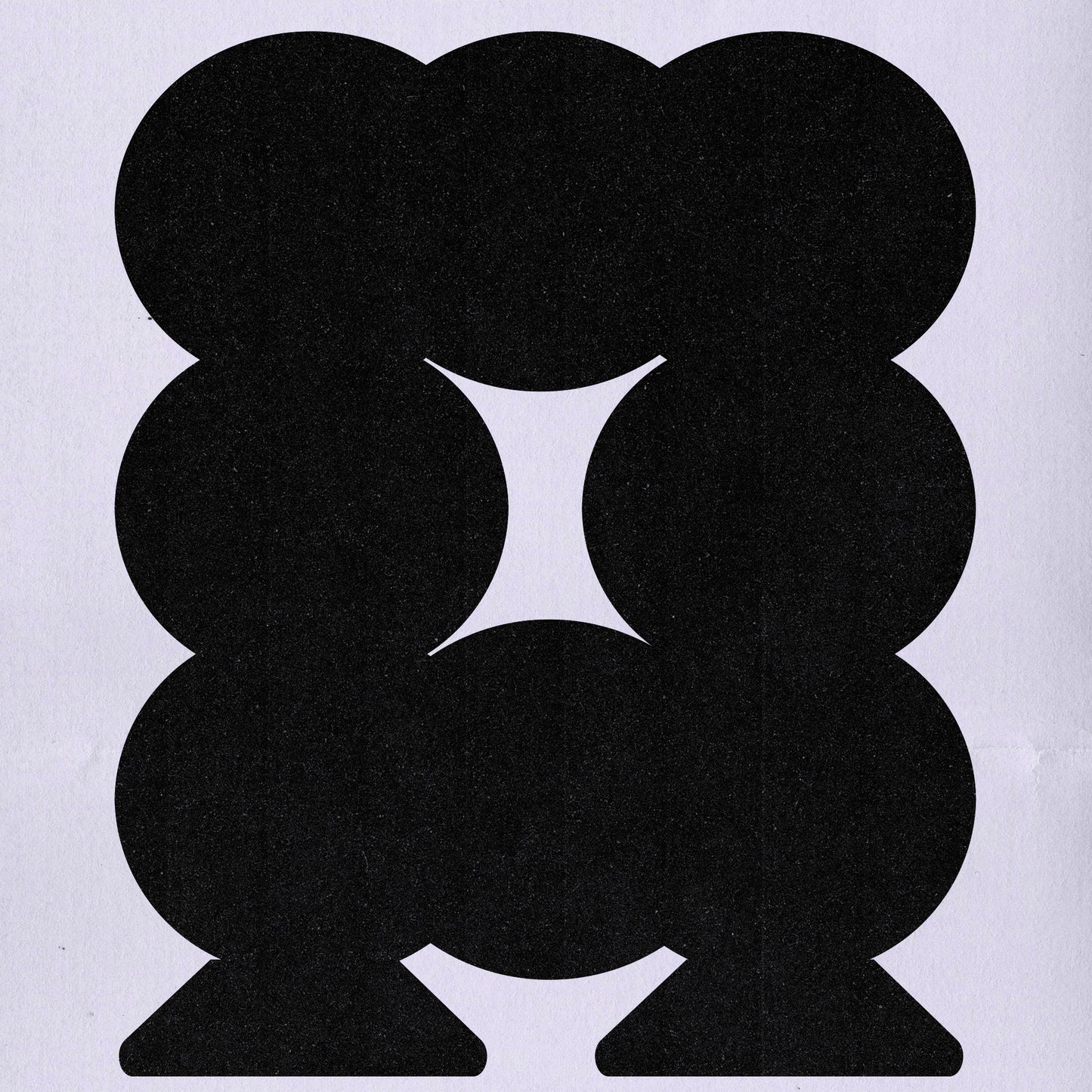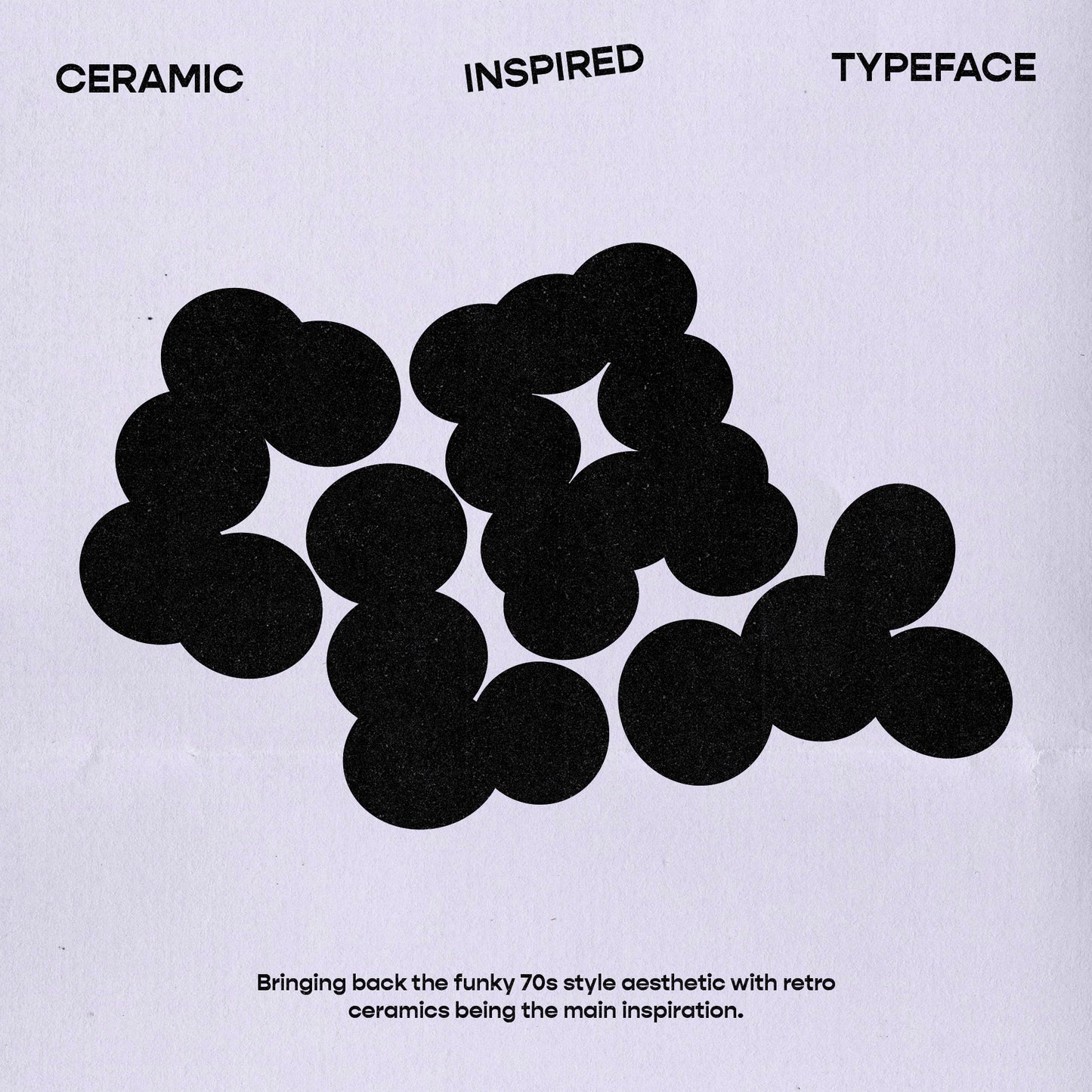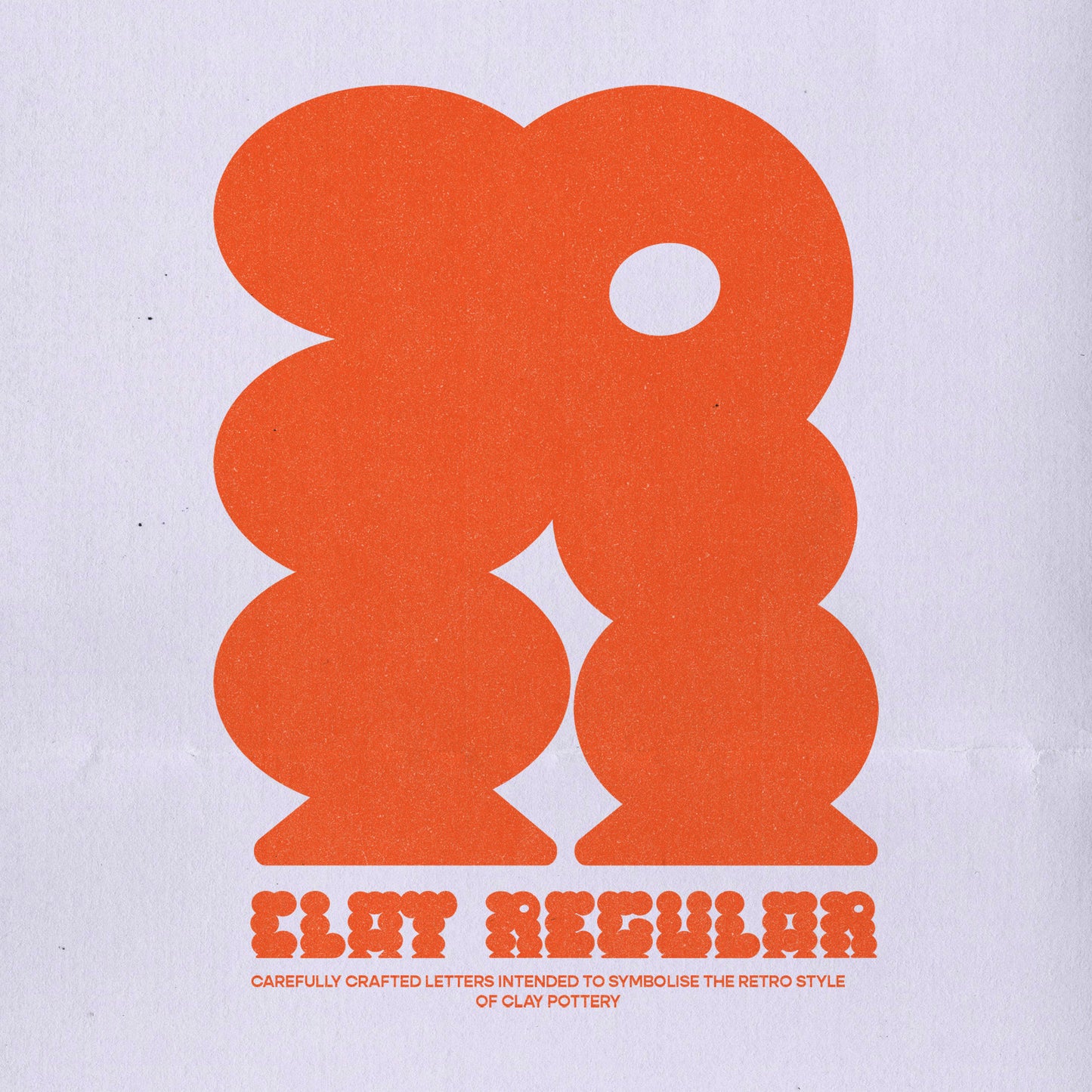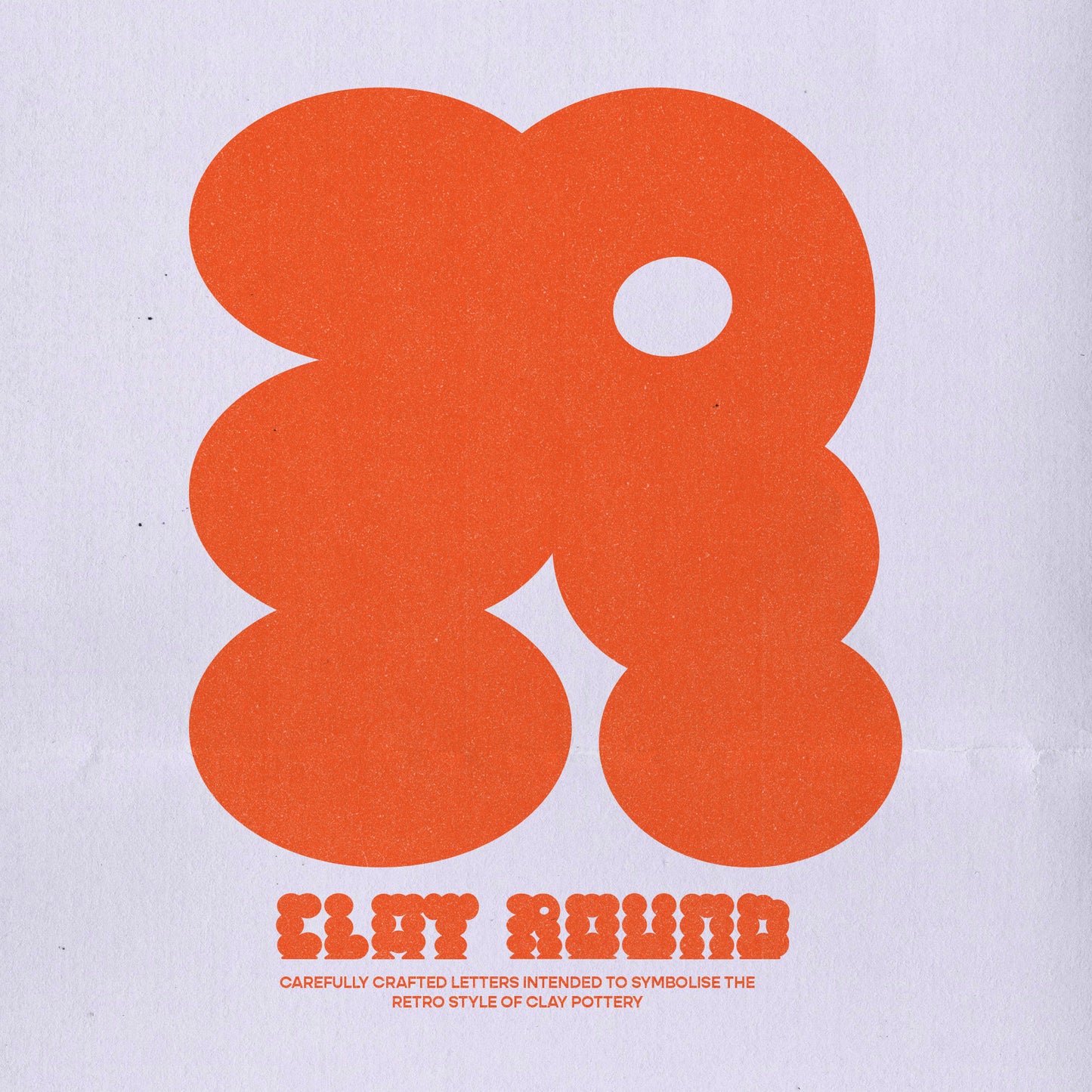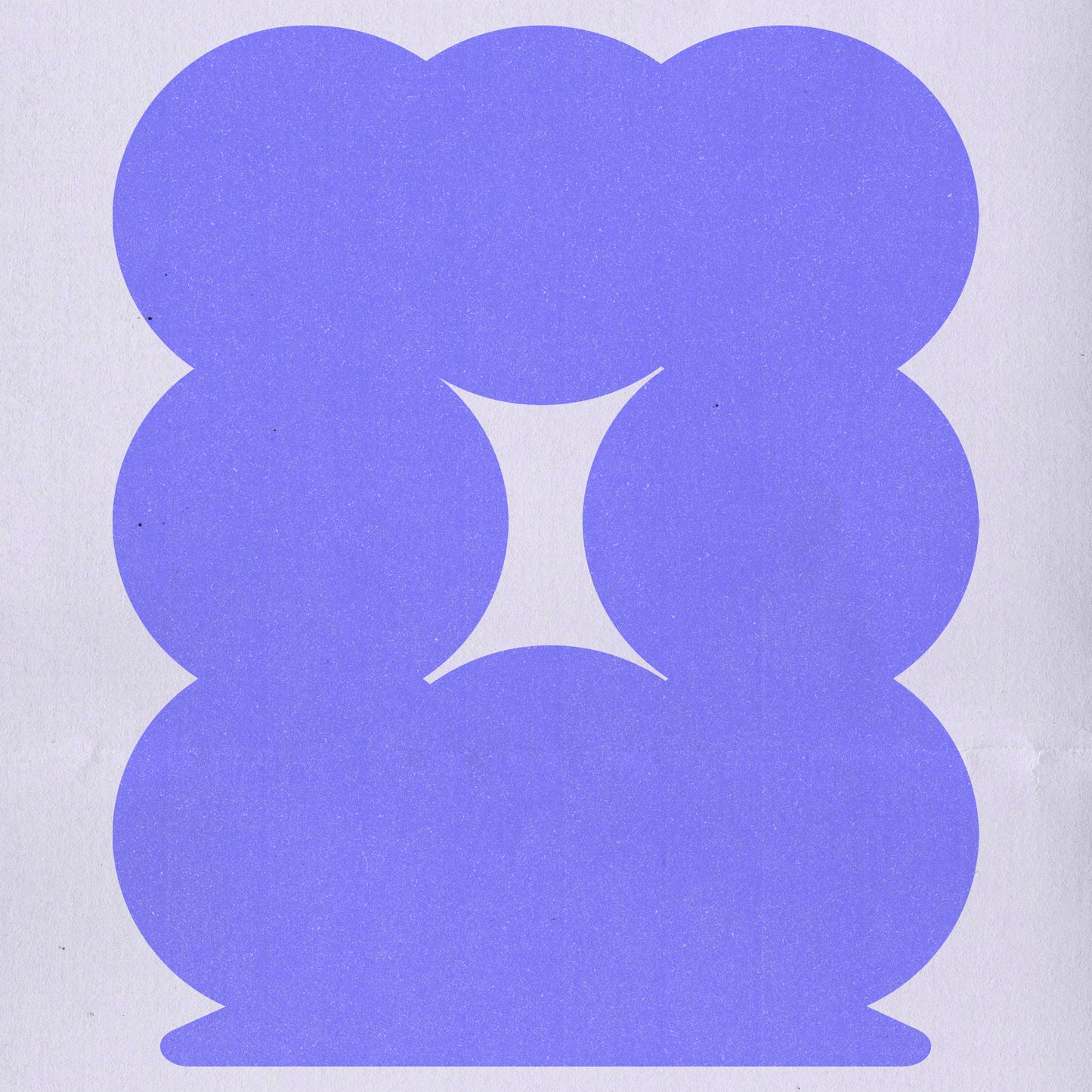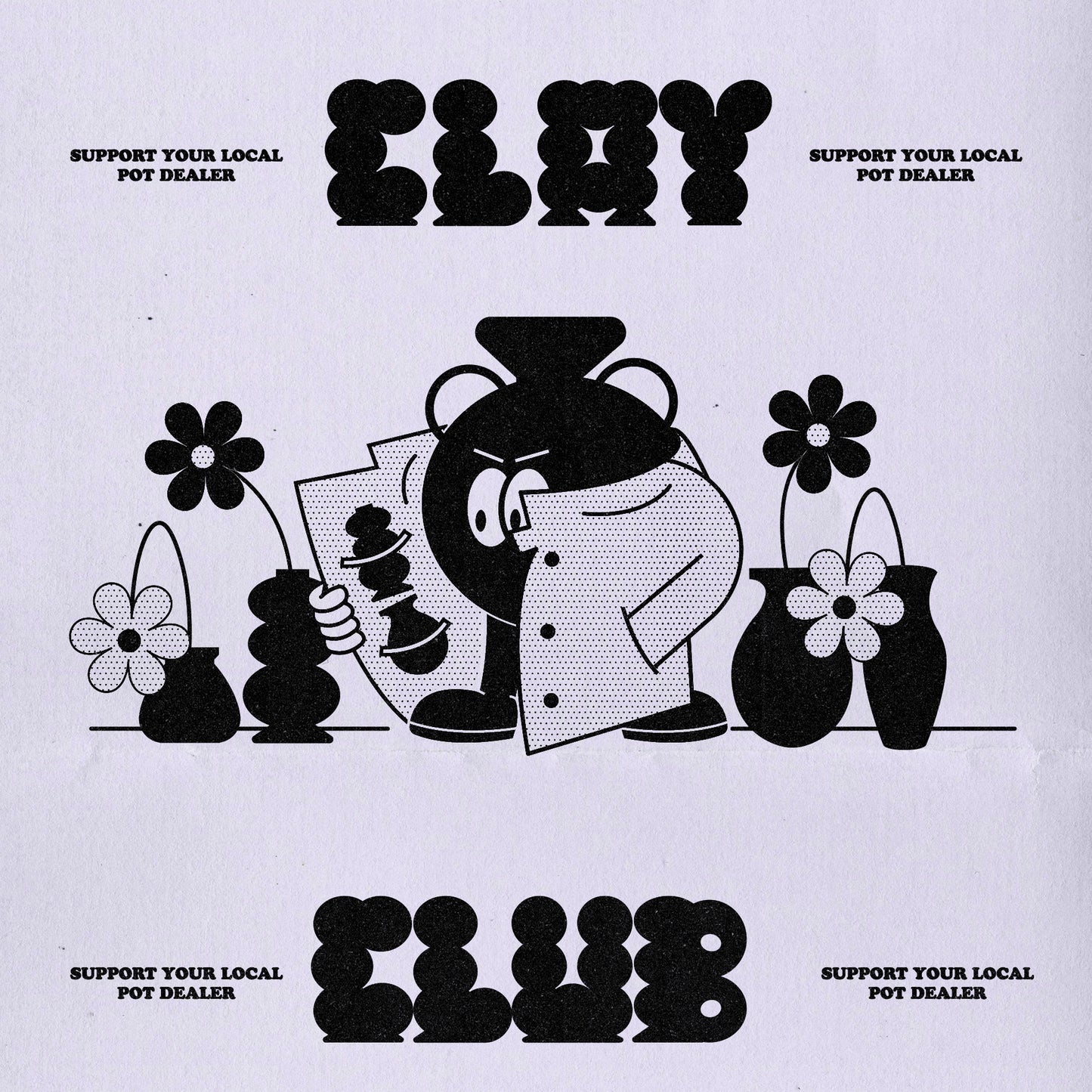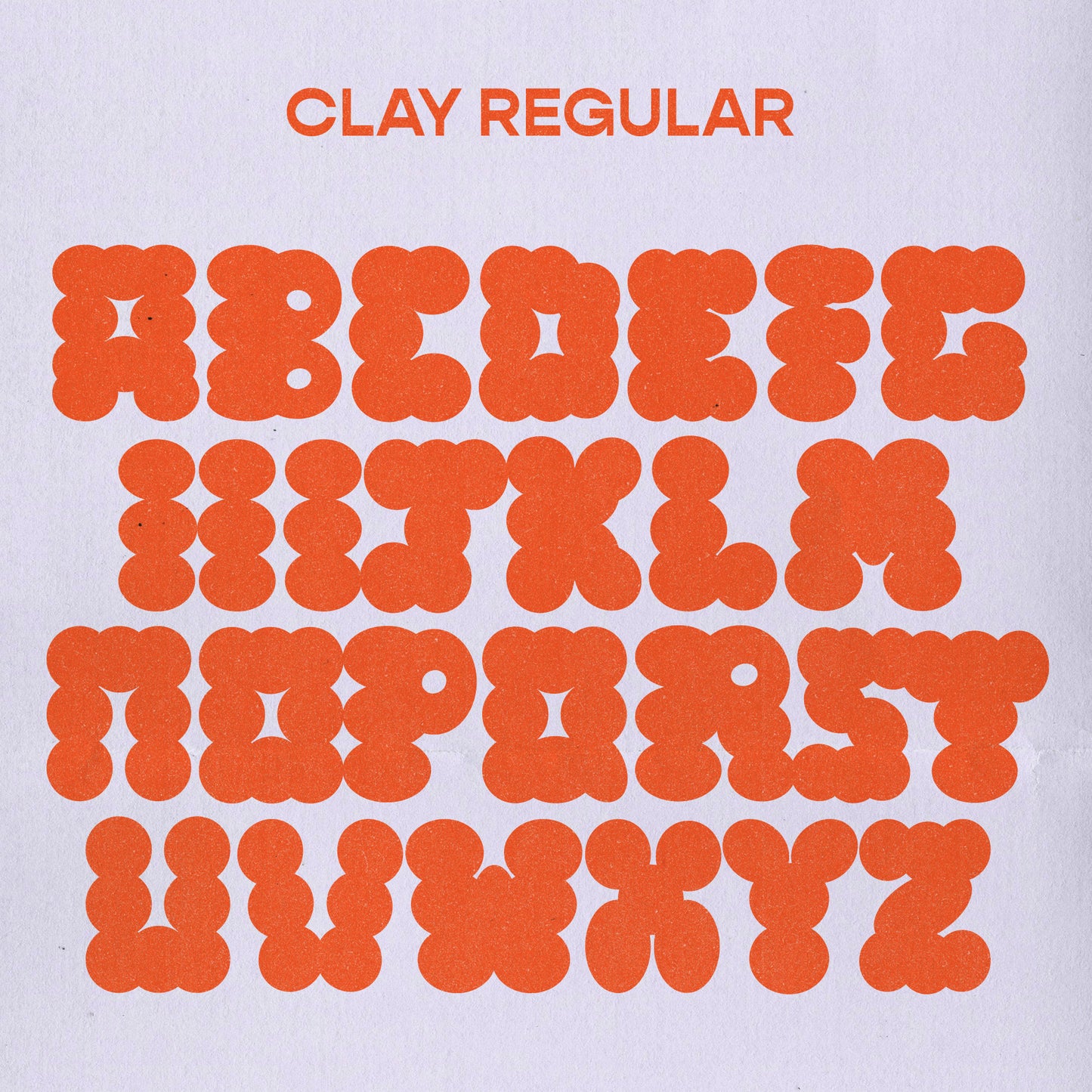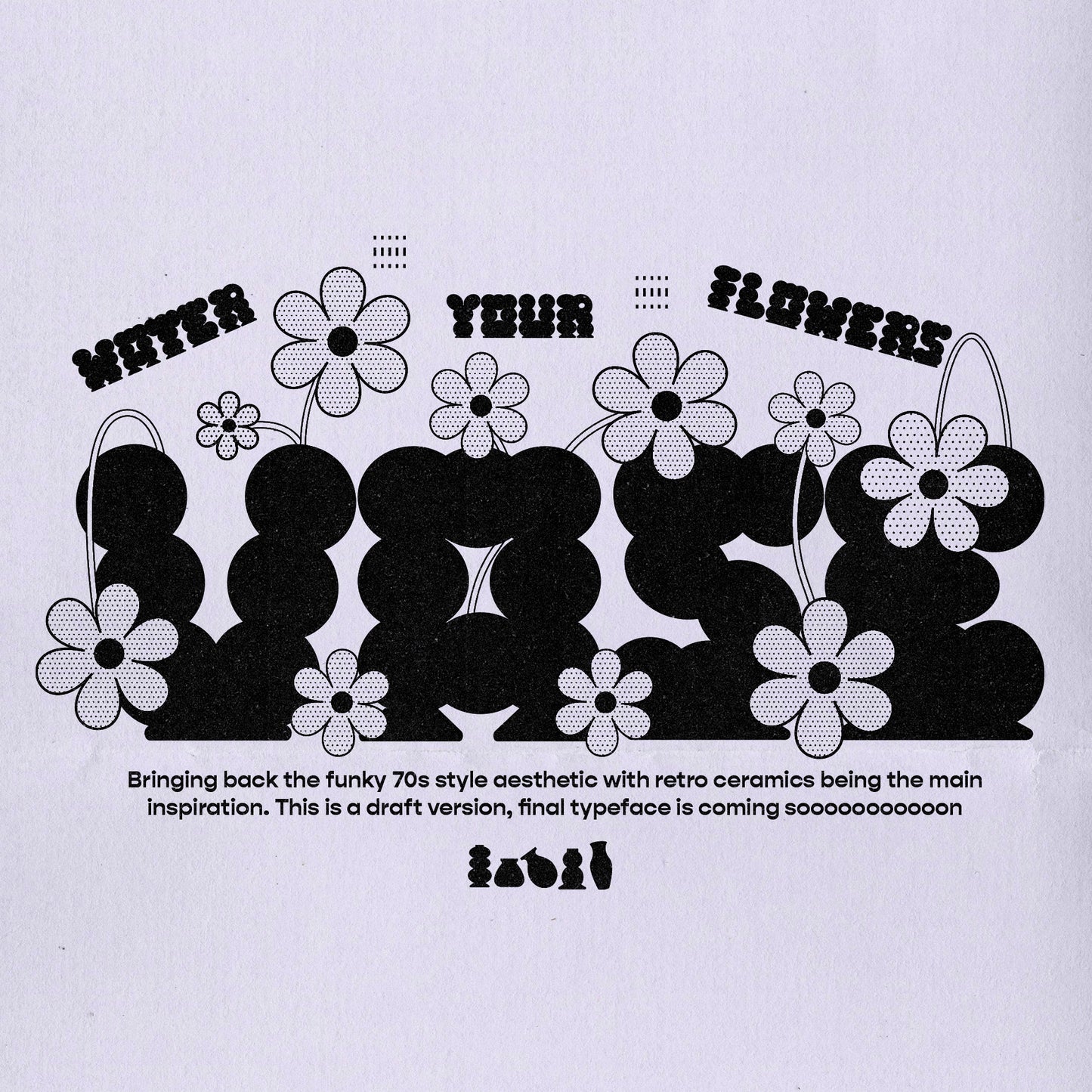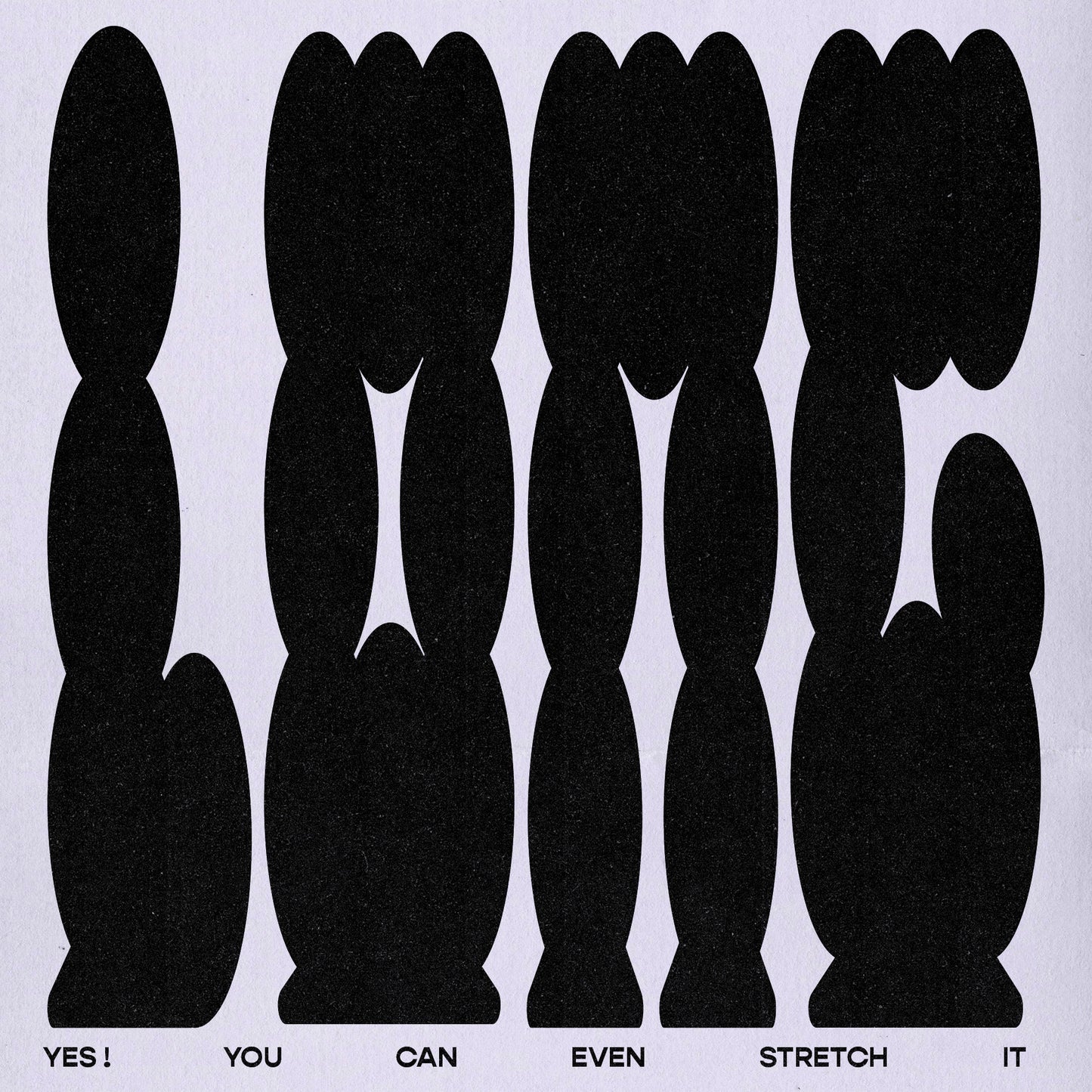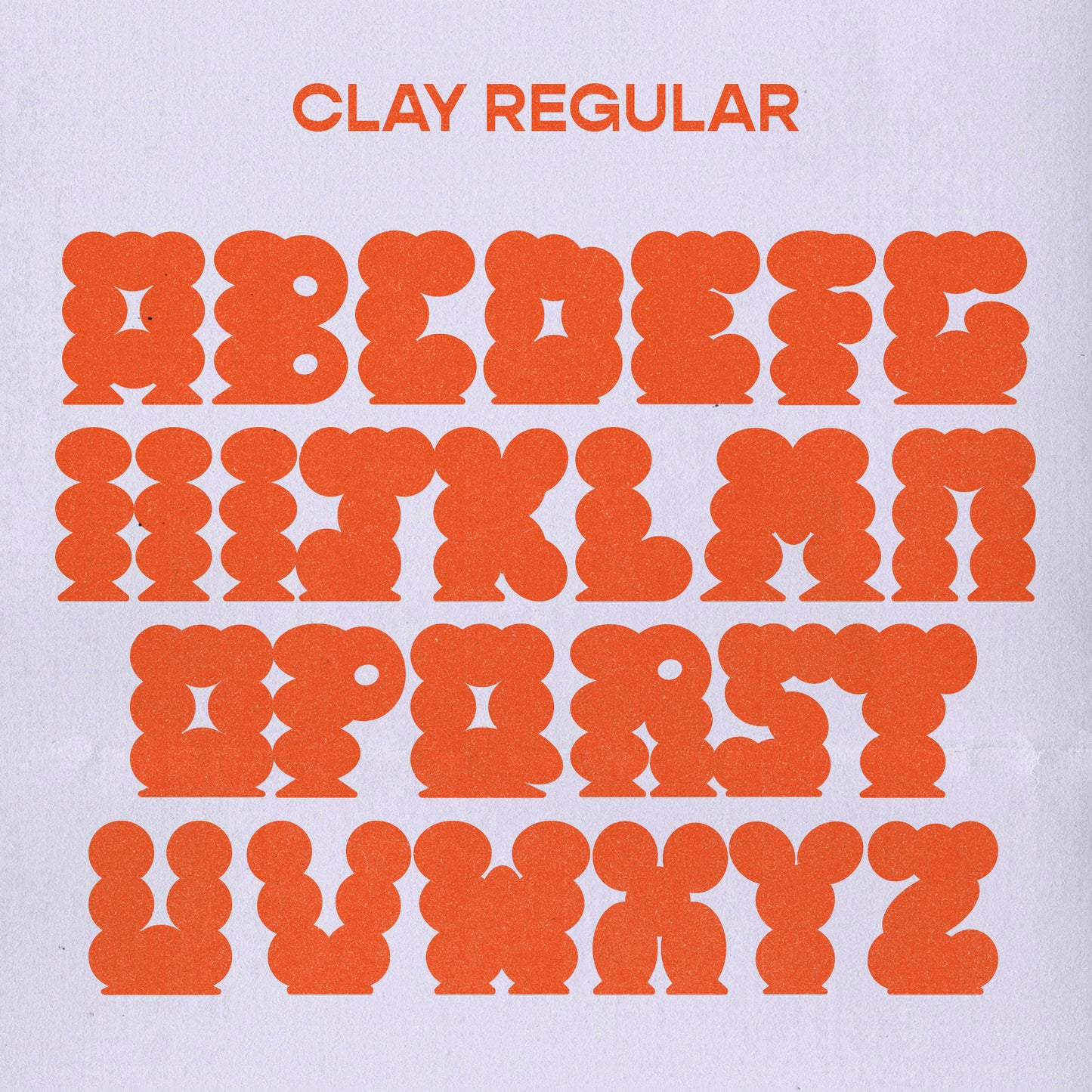
Clay
Harry Wright
Clay revives the funky style of the 1970s with its chunky, bubbly forms, capturing the essence of ceramic vases in an all-uppercase typeface. Inspired by Harry's playful directive—"It's Time To Make Form Informal"—Clay embodies a creative blend of retro aesthetics and contemporary design.
- Total glyph set: 26
- All uppercase
- A-Z
- 2 styles (Regular & Round)